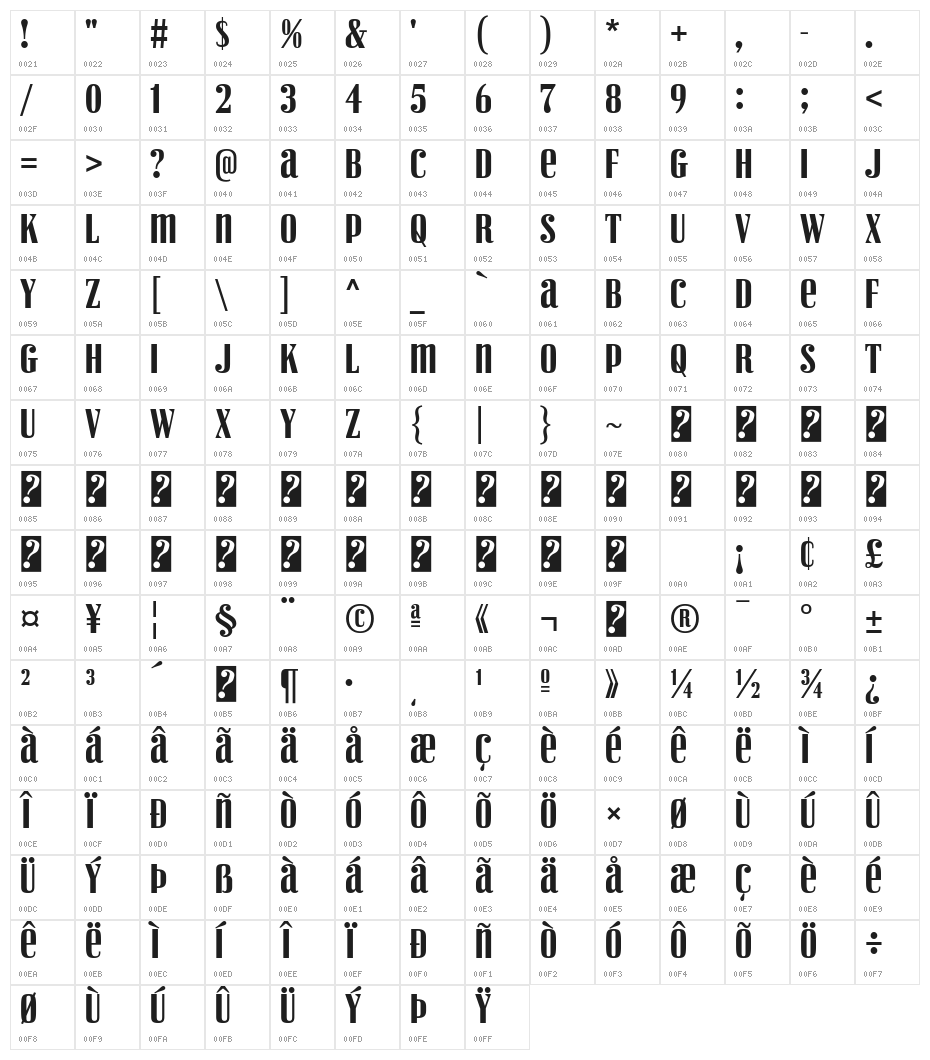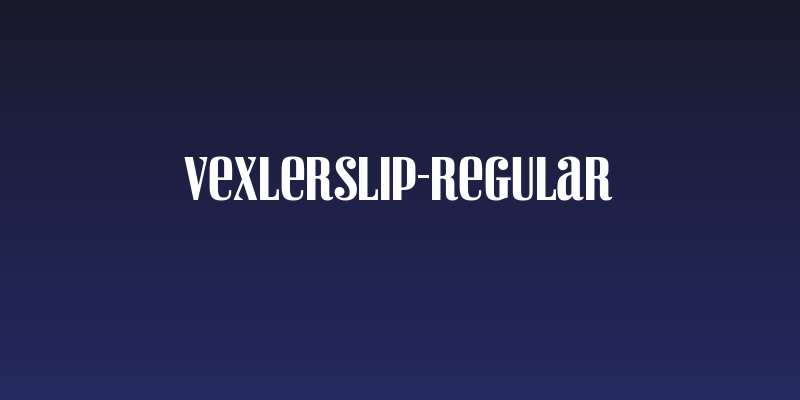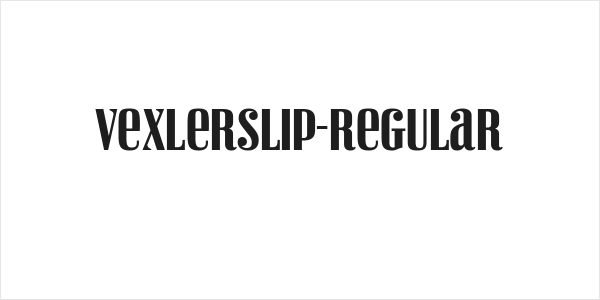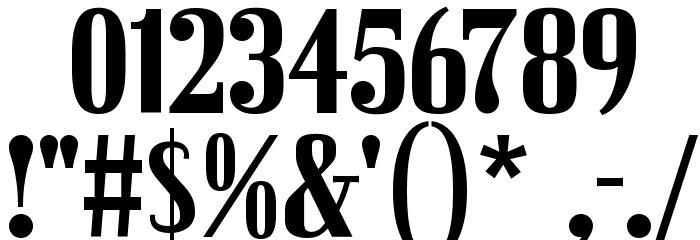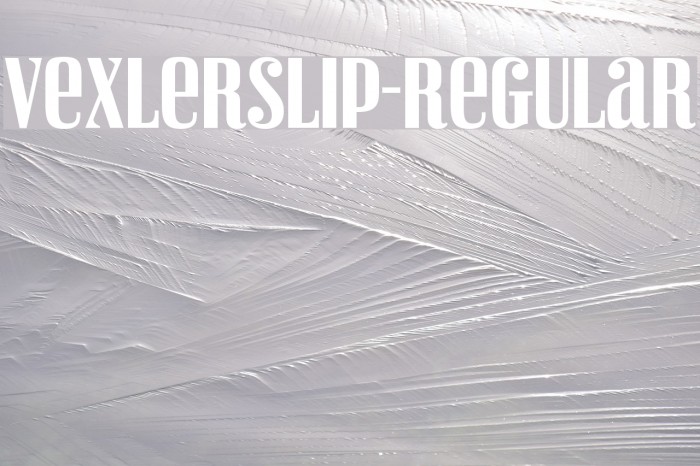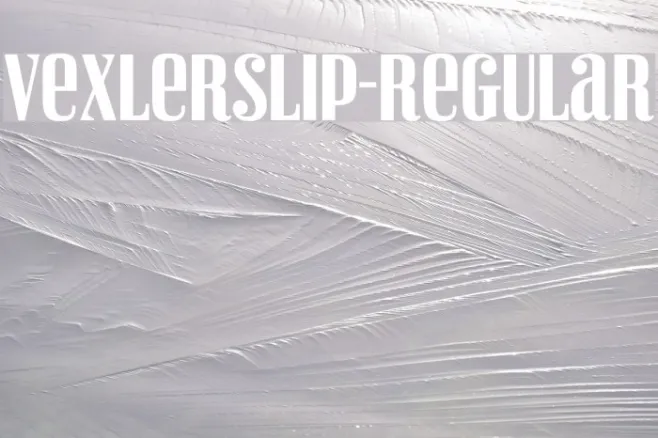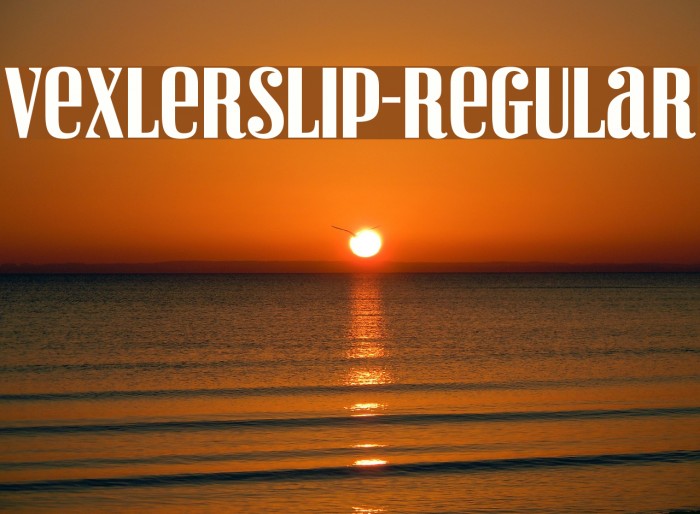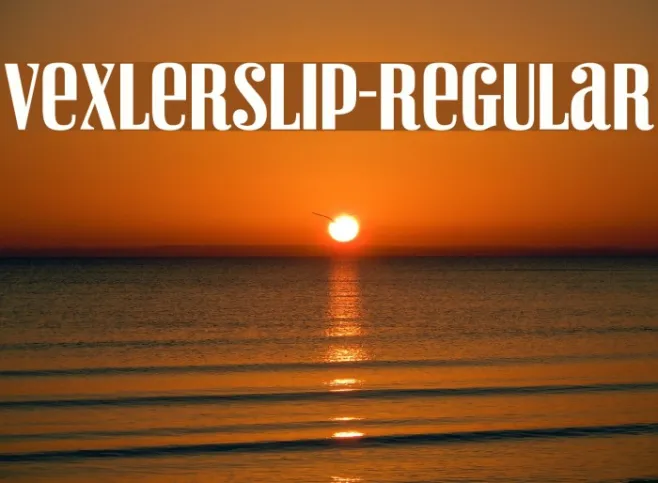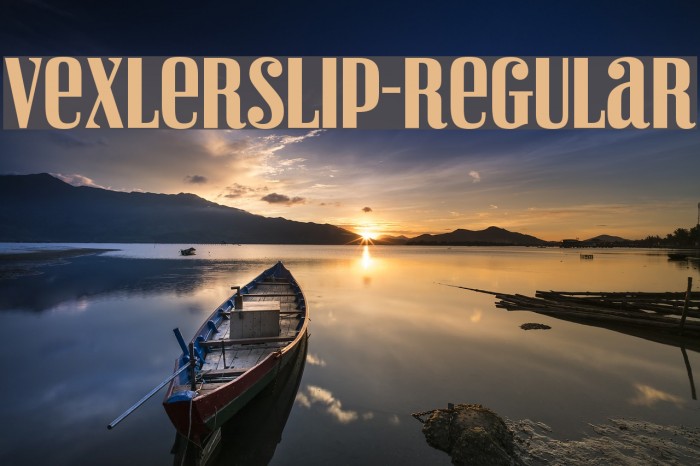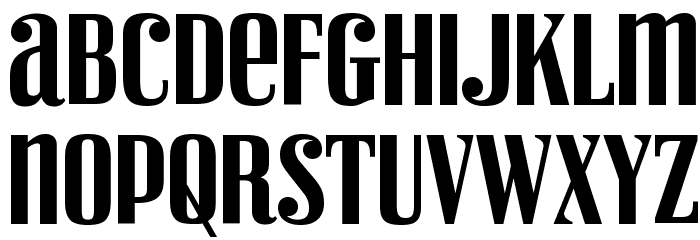
VexlerSlip-Regular Font
VexlerSlip-Regular Description
This font features a bold and striking design with high contrast between thick and thin strokes. The characters exhibit a unique blend of modern and vintage styles, with elegant curves and sharp edges. The uppercase letters are tall and commanding, while the lowercase letters maintain a consistent height, providing a balanced and cohesive look. The numerals are distinct and easily readable, and the special characters are designed to complement the overall aesthetic. This font is perfect for making a statement in any design project.
| Overall Style | Modern, Vintage |
| Proposed Projects | Ideal for headlines, posters, branding, and editorial design. |